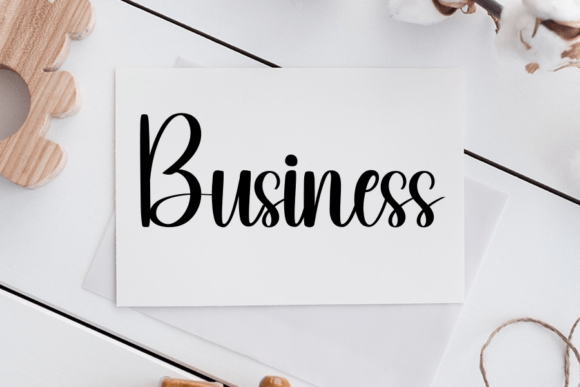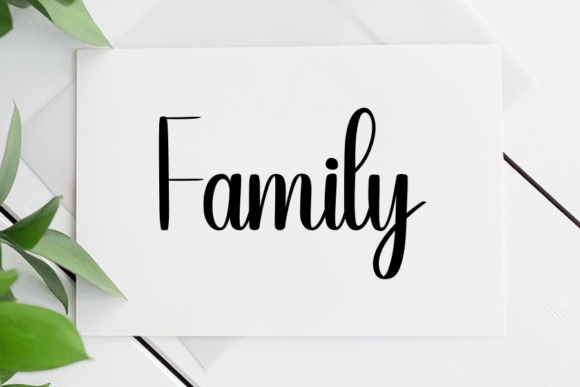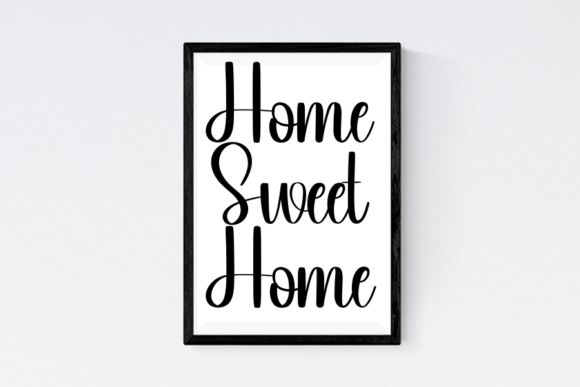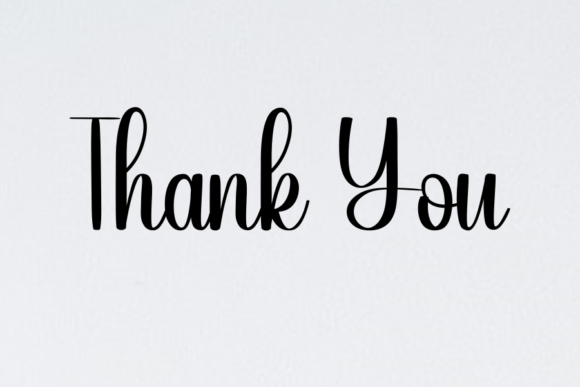
The Catch: Why Fishing Font Will Hook You
I still remember the design project that led me to discover the Fishing font. I was working on a whimsical greeting card for a friend’s birthday, and I just couldn’t find the right font to match the playful vibe of the illustration. The project required a handwritten font that was both fun and friendly, but everything I tried seemed either too formal or too quirky. That’s when I stumbled upon Fishing font, and it instantly became my go-to for that project—and many others since!
An Honest Review: The Good and the Quirky
Fishing font has quickly become a staple in my design toolkit, but like any font, it’s not without its charms and quirks. Here’s my honest take:
- ✨ Fun and Friendly Vibe: Fishing font embodies a carefree, handwritten feel that’s perfect for crafts, digital designs, presentations, or making greeting cards.
- ✅ Versatility: Its friendly tone works well across various projects, from casual to somewhat formal designs.
- 🤔 Limited Formality: While its friendly tone is a strength, it might not be suitable for projects requiring a more formal or corporate look.
- ⚠️ Glyph Variety: While it offers some stylistic alternates, it might not have the extensive glyph library that some designers require for highly customized projects.
The Story Behind Fishing Font
Fishing font was designed with the intention of capturing a carefree, friendly vibe. Its creator aimed to produce a font that felt approachable and versatile, suitable for a wide range of design projects. While the exact story might be fictional, the impact of the font on designers and crafters is very real.
Q: Does Fishing font support OpenType features?
A: Yes, Fishing font offers some OpenType features and stylistic alternates, allowing for a bit of customization in your designs.
Q: Is Fishing font easy to read?
A: Yes, despite its handwritten nature, Fishing font is designed to be clear and readable, making it suitable for both digital and print projects.